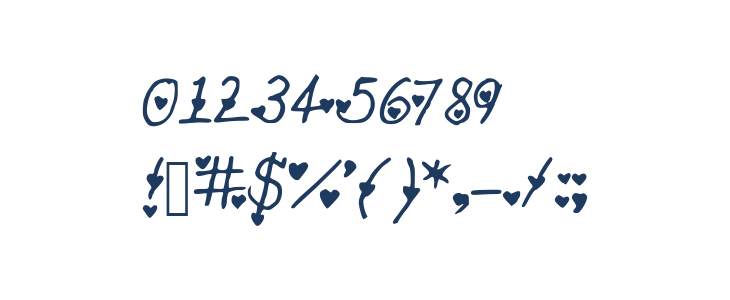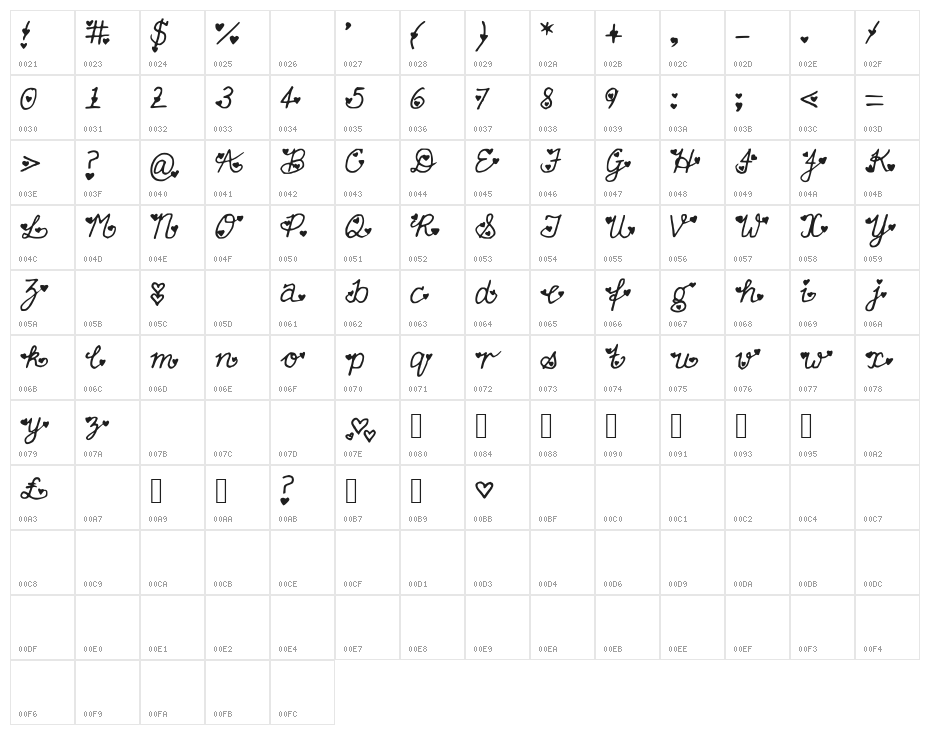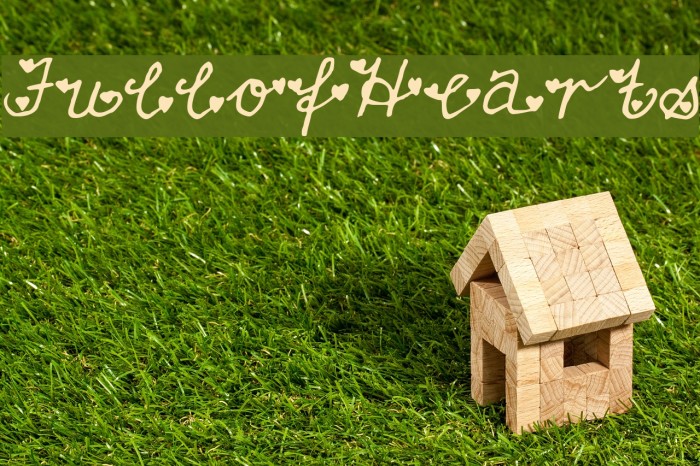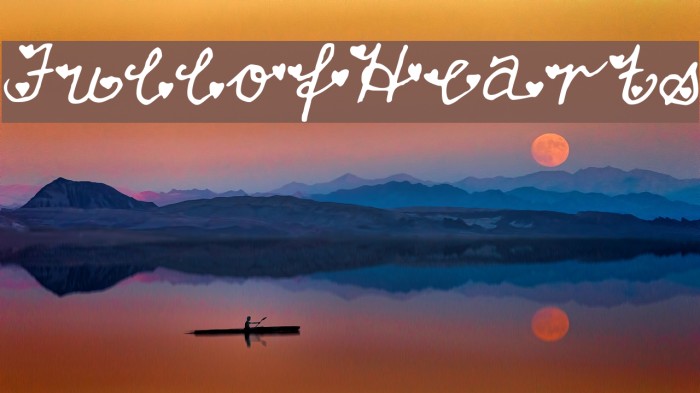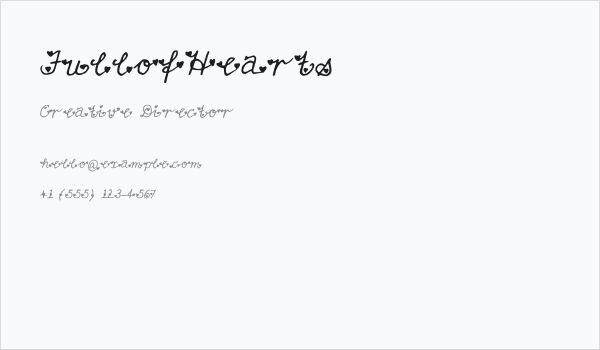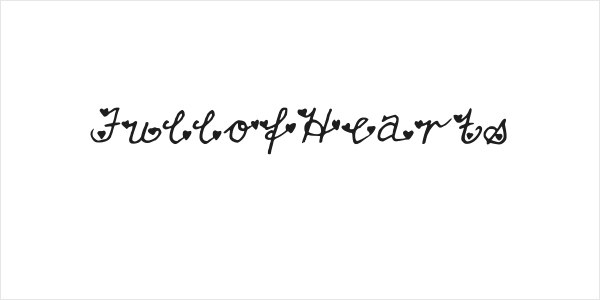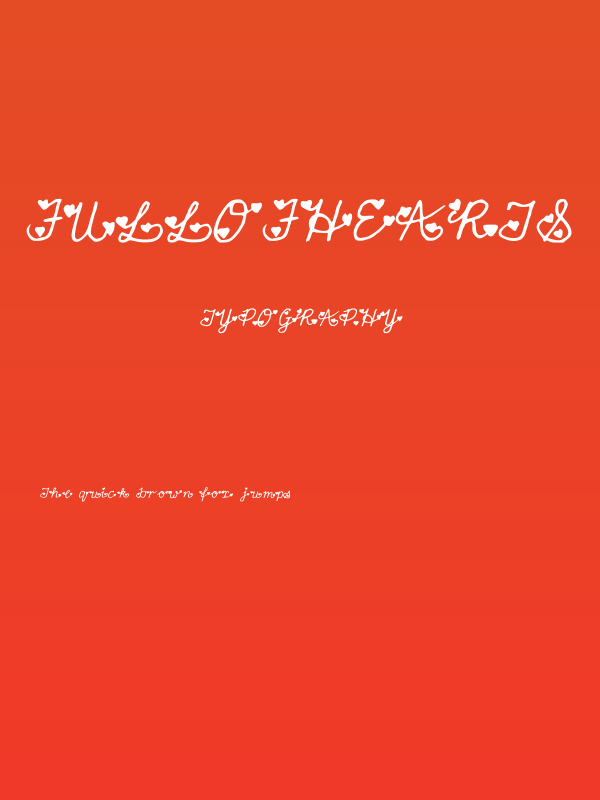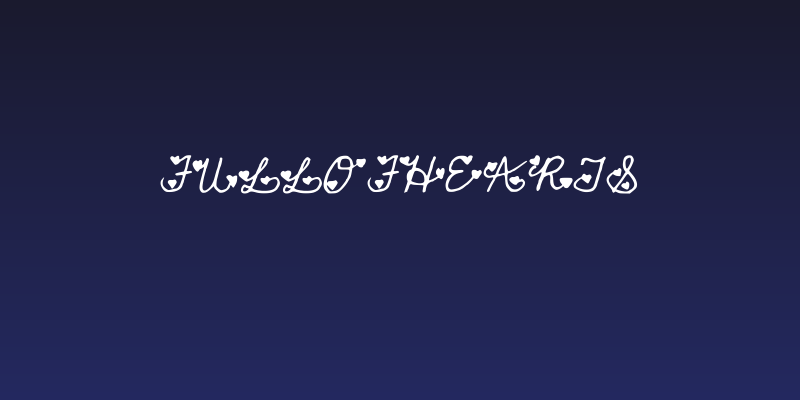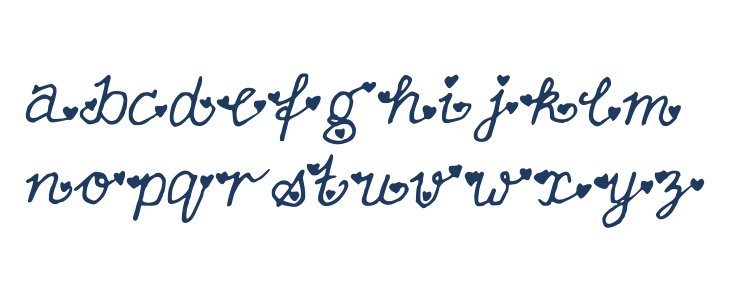
FullofHearts Font
FullofHearts Description
This playful and decorative font features heart-shaped embellishments integrated into each character, creating a whimsical and romantic aesthetic. The letters are designed with a flowing, cursive style that adds a sense of elegance and charm. The uppercase and lowercase letters maintain a consistent style, with the heart motifs adding a unique touch to each character. Numbers and special characters are also adorned with hearts, making this font ideal for projects that require a fun and loving theme. The overall design is both eye-catching and distinctive, perfect for adding a personal touch to creative works.
| Use Case | Headlines, Logos, Invitations |
| Proposed Projects | Ideal for wedding invitations, Valentine's Day cards, love-themed posters, and playful branding projects. |